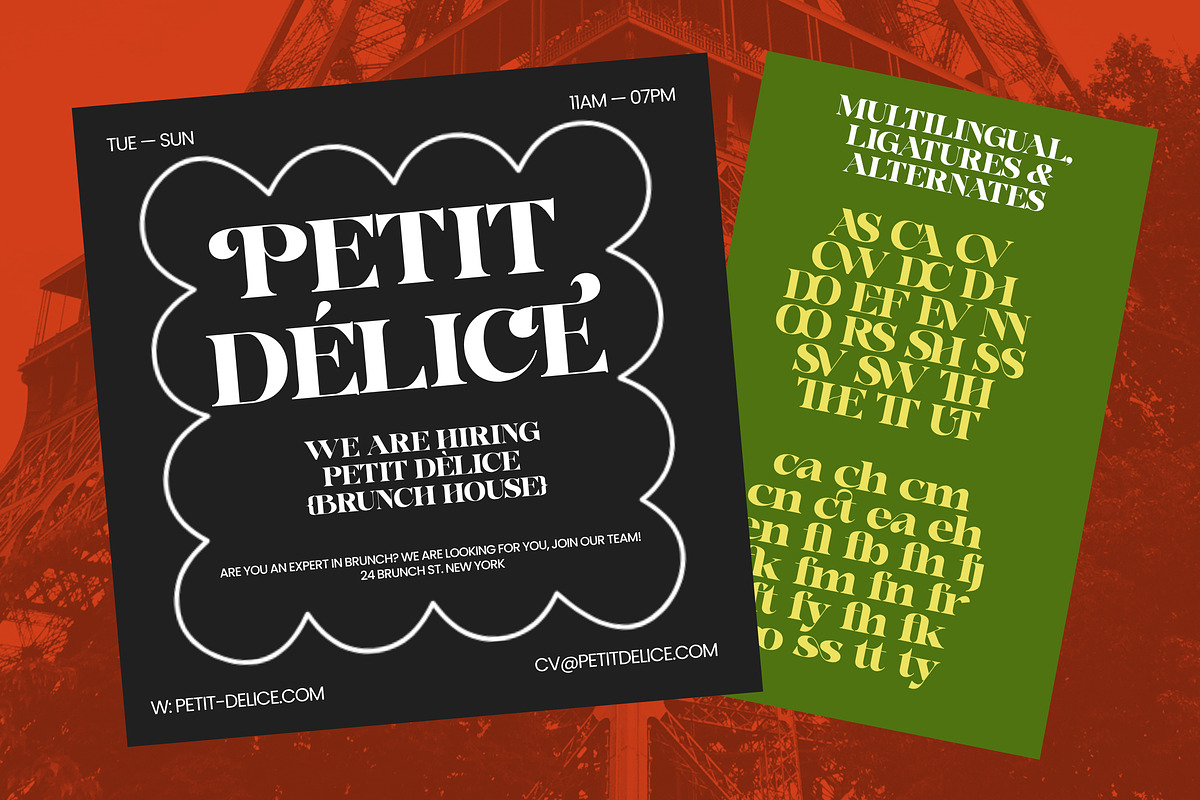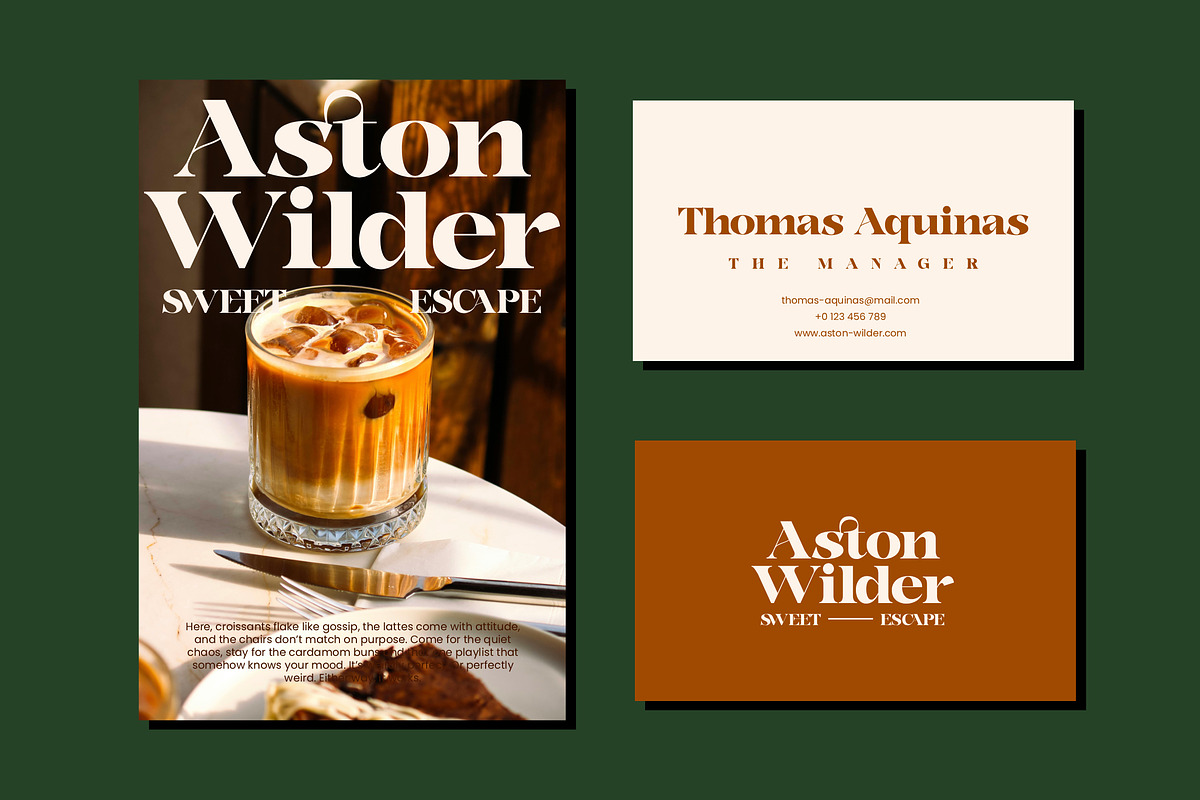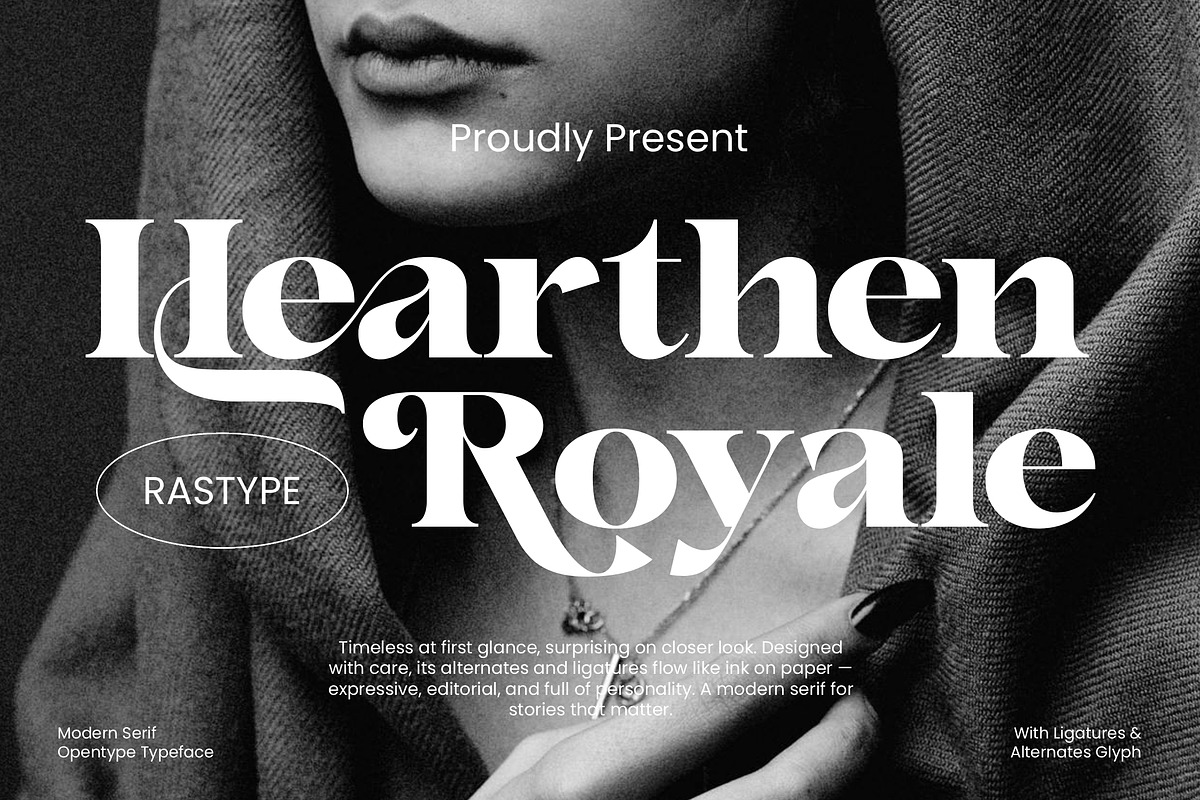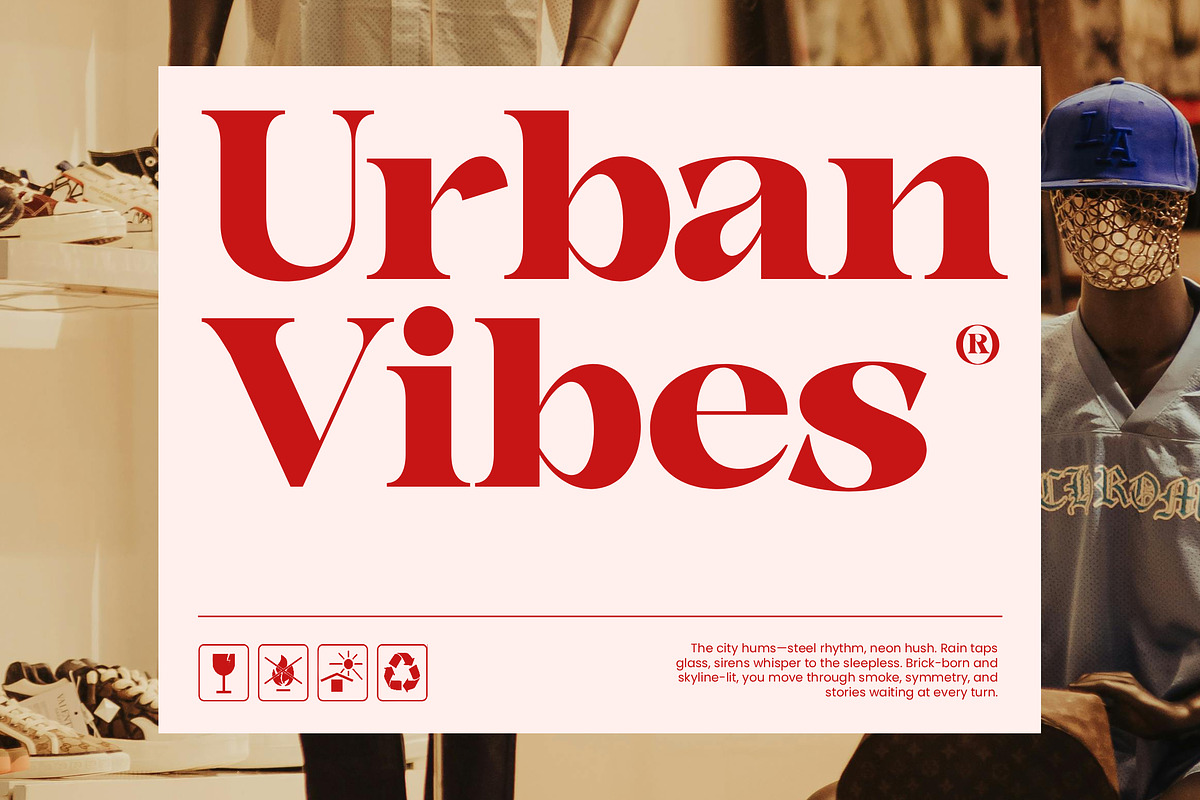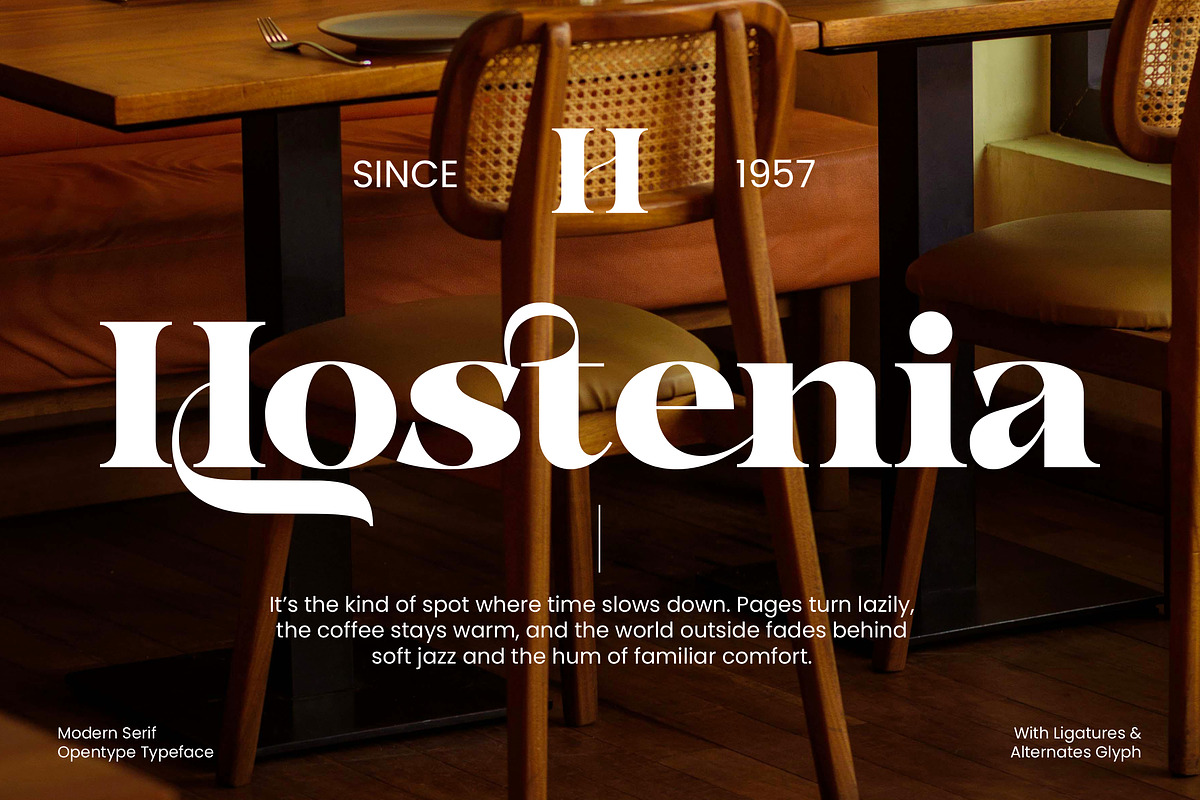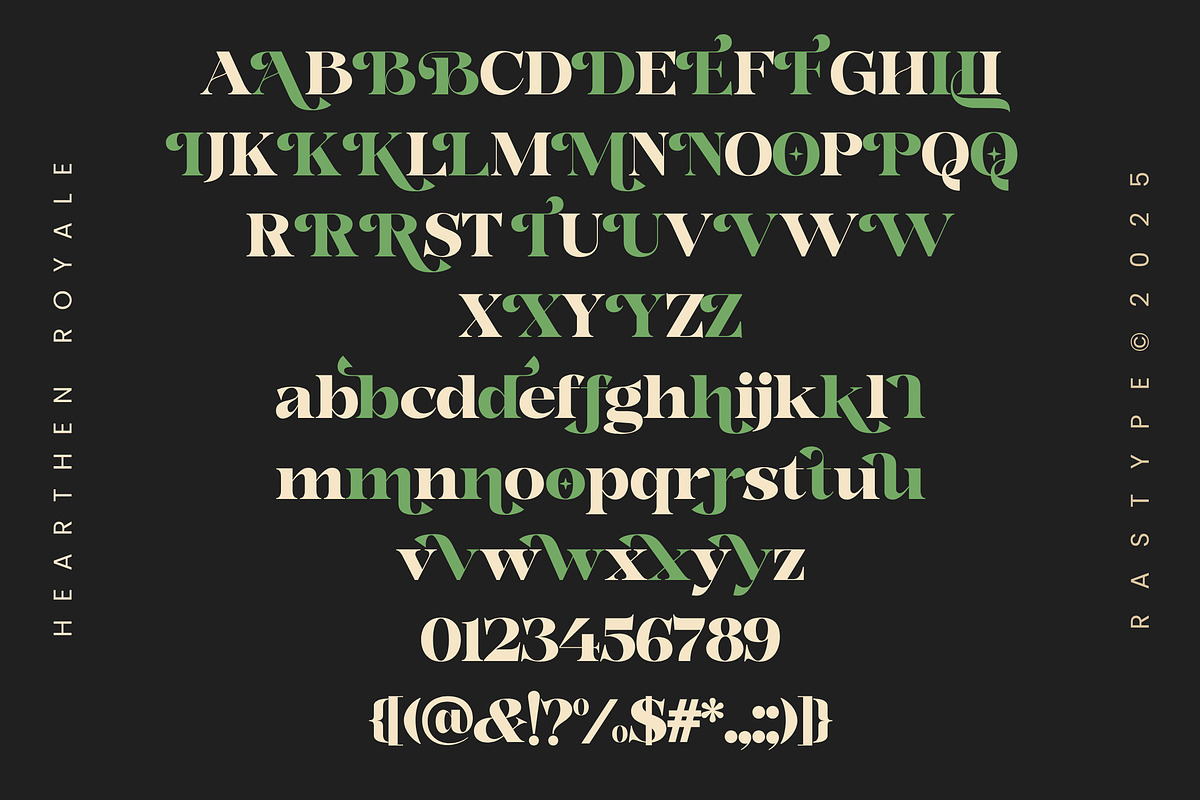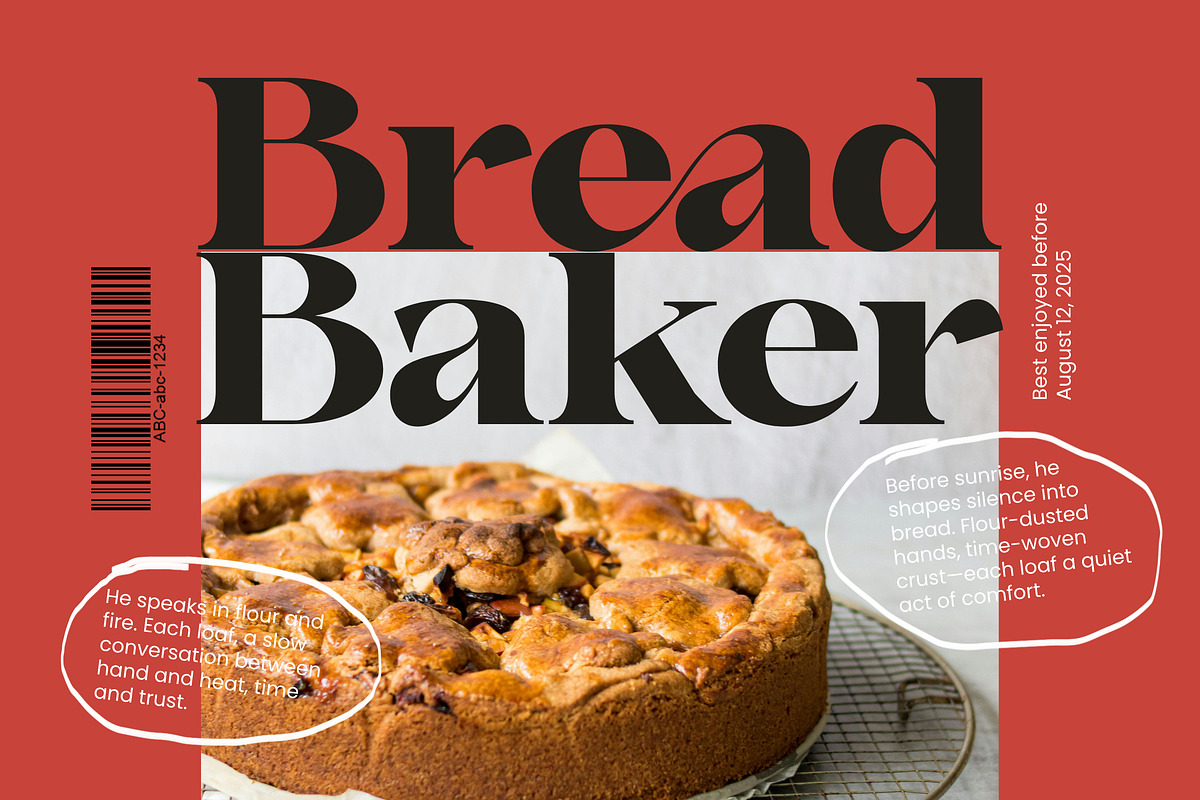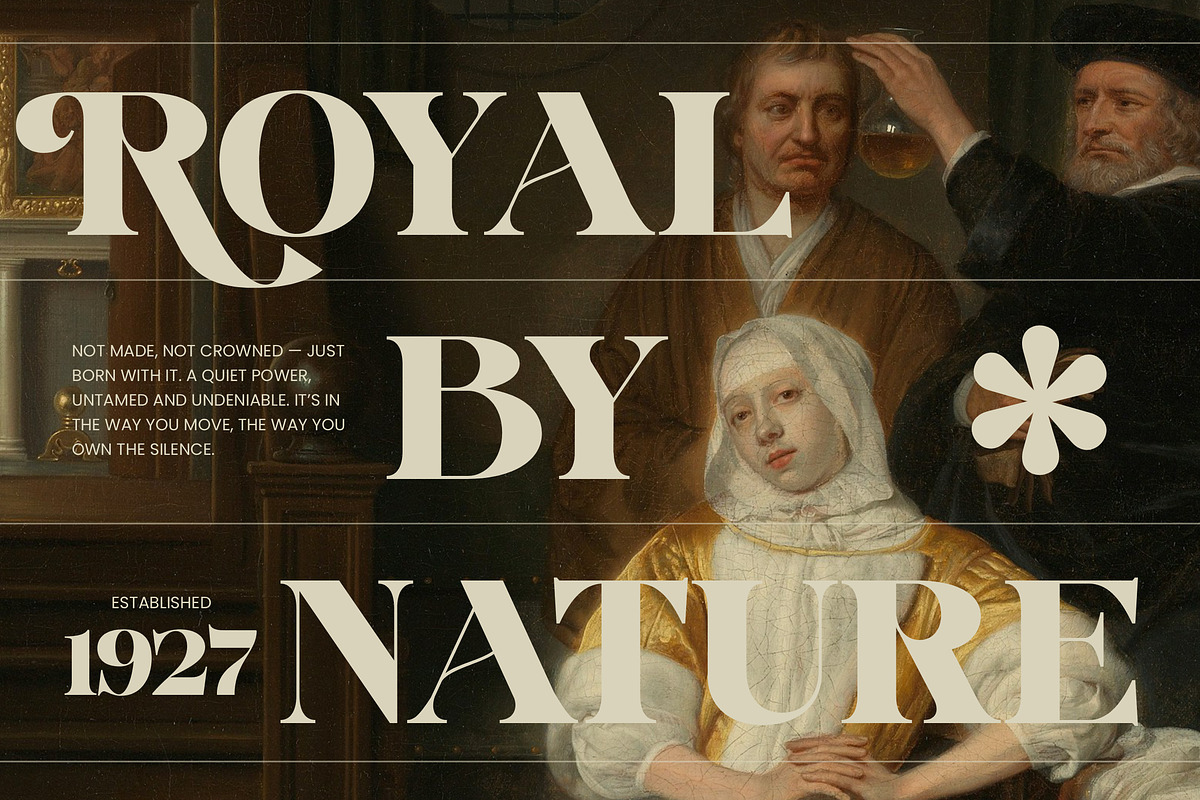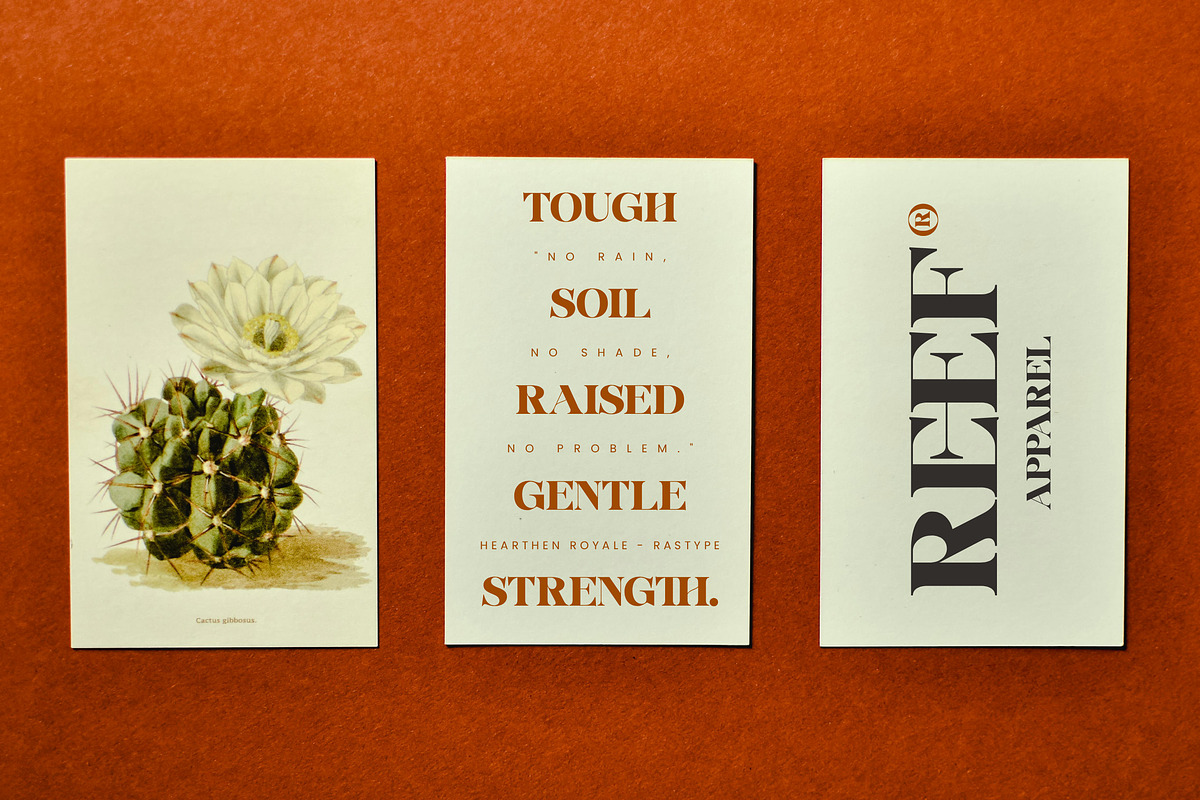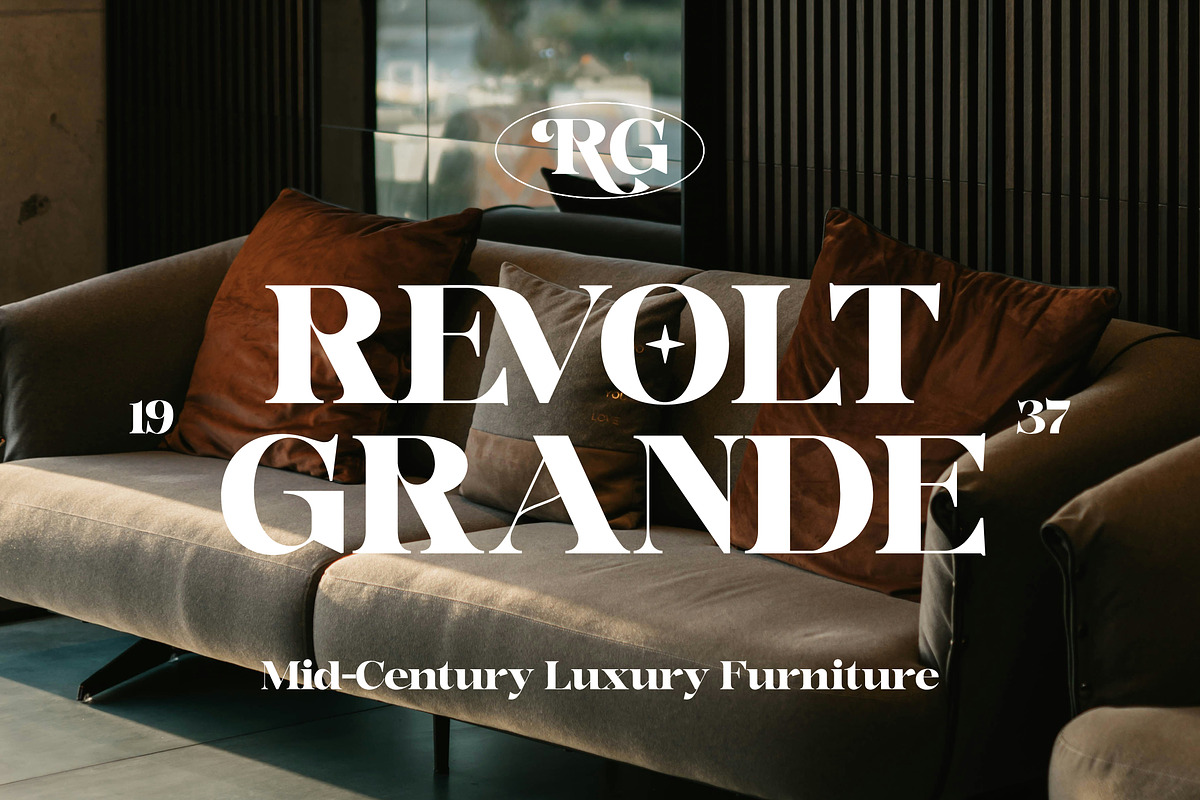
Hearthen Royale
Hearthen Royale is a premium modern serif font designed to convey a sense of luxury, elegance, and exclusivity in every design. The combination of classic characters and contemporary touches makes this font strong, classy, and full of visual appeal.
This font comes with 40 complete font styles, providing maximum flexibility for a variety of design needs—from bold, dramatic headlines to elegant, refined text.
Supported by ligatures and alternate glyphs, Hearthen Royale enables richer, more unique, and professional typography exploration. It is perfect for premium branding, logos, editorials, magazines, fashion, beauty, product packaging, wedding design, and even social media content that wants to appear expensive and distinctive.